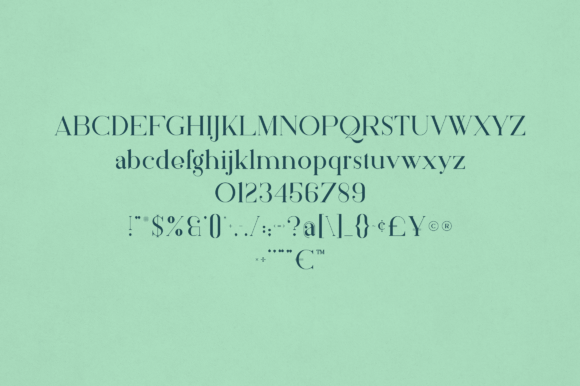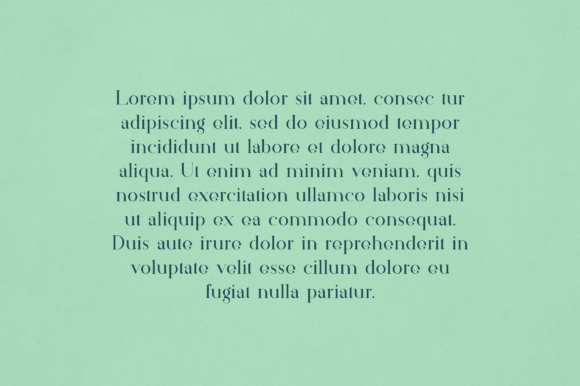
Introducing Beeba Font: Elevate Your Typography with Elegance and Versatility
In the world of design, typography plays a crucial role in conveying messages, expressing creativity, and capturing the essence of a brand. Among the myriad of fonts available, Beeba Font stands out as a beacon of elegance and versatility. This stunning font is designed to transform your typography into something truly unique, making it perfect for a wide range of applications, from logos and branding to headlines and plain text.
The Charm of Beeba Font
Beeba Font is more than just a typeface; it’s an experience. Its elegant design ensures that every piece of text it forms looks sophisticated and refined. Whether you’re working on a logo, a branding project, or simply want to add a stylish text overlay to a background image, Beeba Font is the perfect choice. Its charm lies in its ability to enchant every viewer, turning ordinary text into a visual treat.
One of the standout features of Beeba Font is its versatility. It’s a font that can adapt to various design needs and styles. Here are some of the areas where Beeba Font truly shines:
- Branding Projects: Use Beeba Font to create a lasting impression with your brand’s identity. Its elegant and sophisticated look makes it perfect for crafting logos, business cards, and other branding materials.
- Home-Ware Designs: Add a touch of elegance to your home-ware designs, such as product labels, packaging, and promotional materials.
- Product Packaging: Make your products stand out on the shelves with beautiful and eye-catching packaging designs.
- Magazine Headers: Elevate your magazine or editorial designs with stunning headers and titles that grab attention.
- Text Overlays: Use Beeba Font as a stylish text overlay on background images for social media posts, website headers, or any digital platform.
Why Choose Beeba Font?
With so many fonts available, why should you choose Beeba Font for your next project? Here are a few compelling reasons:
- Unique Typography: Beeba Font offers a unique and distinctive look that sets it apart from more common typefaces.
- Elegance: Its elegant design ensures that your typography looks sophisticated and refined.
- Versatility: Whether you’re working on digital projects or print materials, Beeba Font adapts seamlessly.
- User-Friendly: Designed with usability in mind, Beeba Font is easy to read and works well in both large and small sizes.
Tips for Using Beeba Font
To get the most out of Beeba Font, here are some tips for incorporating it into your designs:
- Pair with Simplicity: Beeba Font shines when paired with simple backgrounds or design elements. This allows its elegance to take center stage.
- Experiment with Sizes: Don’t be afraid to experiment with different sizes. Beeba Font looks great in both large headings and smaller body text.
- Play with Colors: While Beeba Font looks stunning in classic black and white, don’t hesitate to experiment with different colors to match your brand’s palette.
Beeba Font is a game-changer for designers and crafters looking to elevate their typography. Its elegant design, versatility, and user-friendly nature make it an excellent choice for a wide range of projects. Whether you’re a professional designer or a DIY enthusiast, Beeba Font has the potential to transform your work into something truly special. So, why settle for ordinary typography when you can enchant your audience with the elegance and versatility of Beeba Font?
Embrace Beeba Font in your next project and experience the difference it can make. With Beeba Font, every piece of text becomes a work of art, capable of captivating and inspiring your audience.